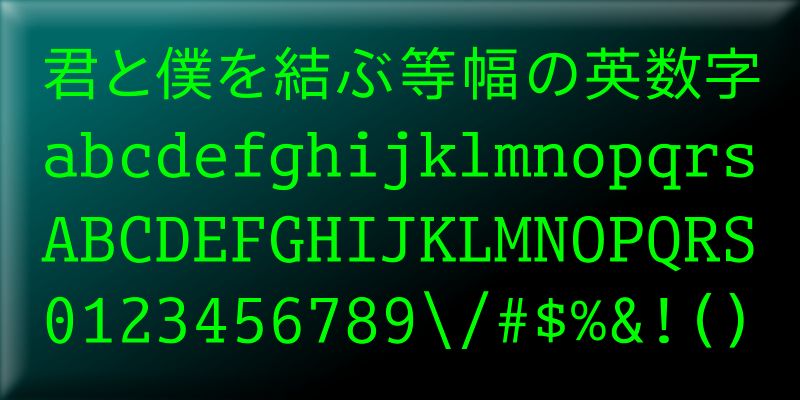
Monopin J Font Free Download is a sleek, minimalist typeface with monospaced structure and refined Japanese character support. Designed for clarity and consistency, Monopin J is perfect for modern UI/UX design, coding interfaces, product labels, signage, and multilingual layouts where both style and precision are key.
With its uniform character width and clean geometric forms, Monopin J Font Free Download blends the utility of a monospaced font with the elegance of thoughtful typography. It’s particularly useful in contexts where alignment and consistency matter—like programming environments or grid-based editorial layouts.
The font features clear Latin and Japanese kana and kanji support, making it a great choice for bilingual or Japanese-centric designs. Whether you're working on tech branding, app design, or minimalist packaging, Monopin J delivers a sharp, contemporary look with reliable legibility.
Clean, crisp, and globally versatile—Monopin J is the perfect blend of form and function for designers who value clarity with a modern edge.